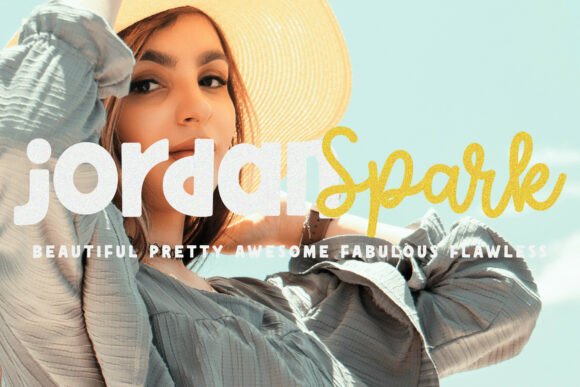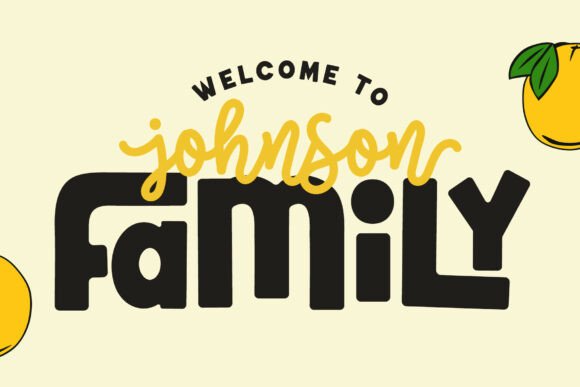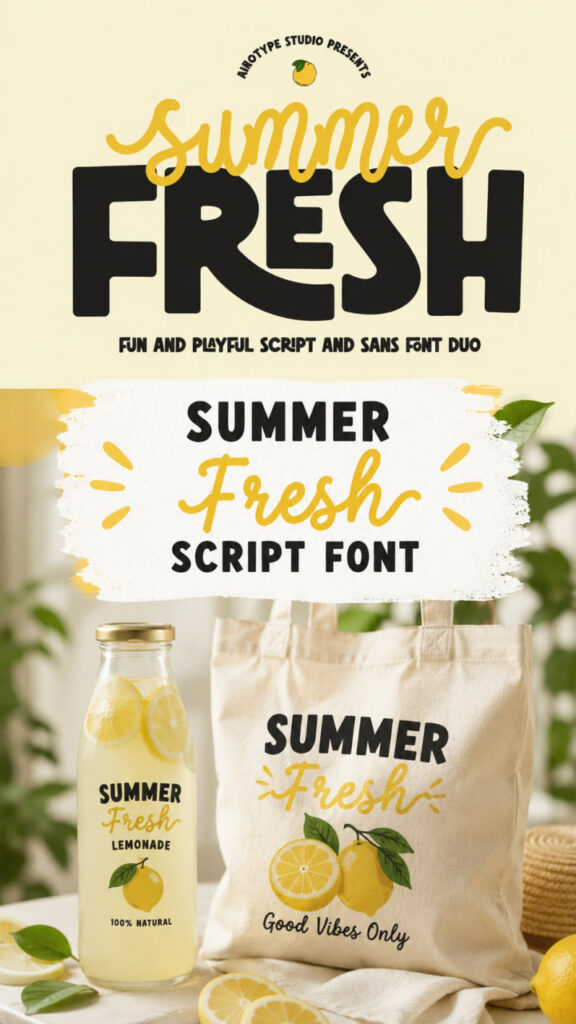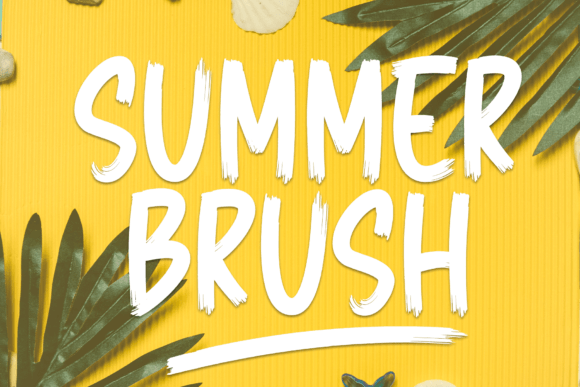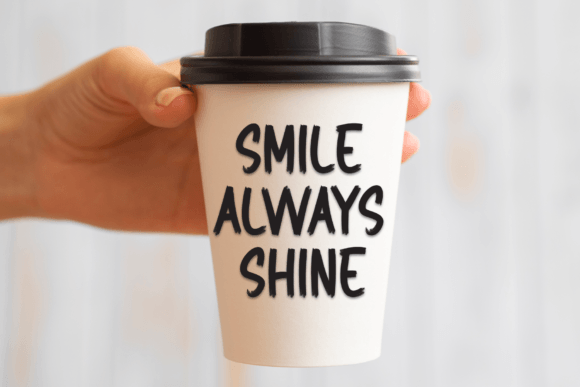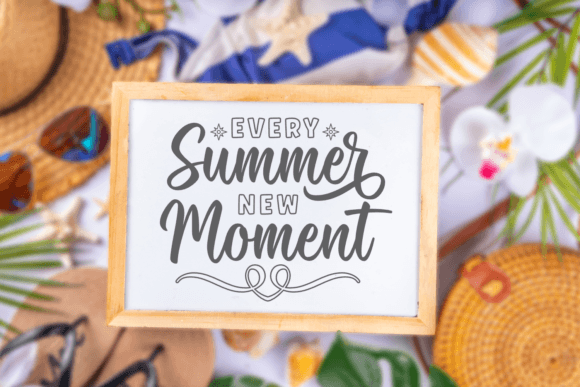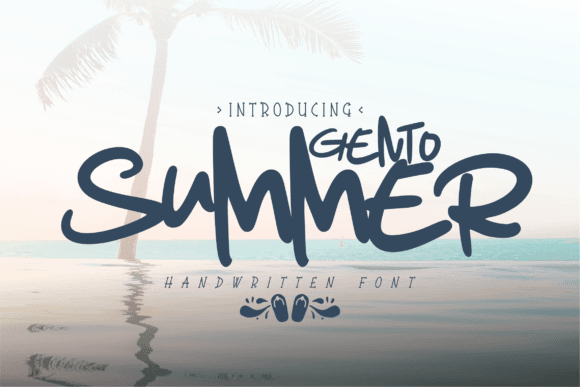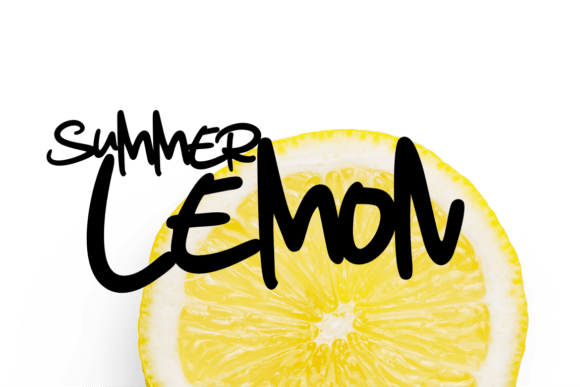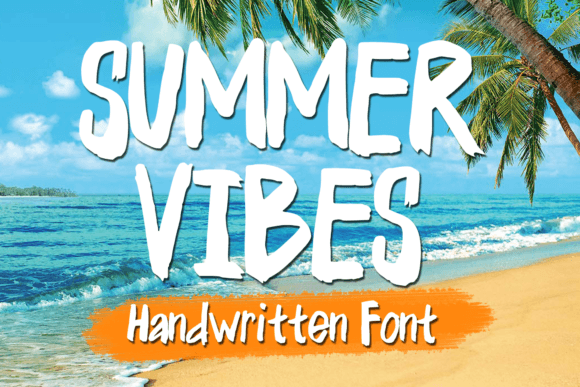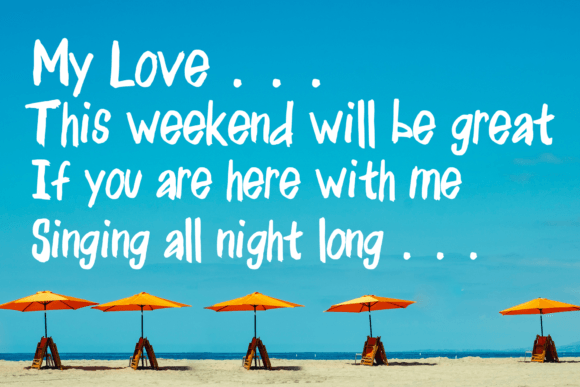
17 Summer Script Fonts: Perfect Typography for Seasonal Designs
Discover the best 17 Summer Script Fonts to bring a warm, sun-drenched magic to your creative projects! This curated collection offers the perfect typography for all of your gorgeous seasonal designs, from relaxed beach party invitations to trendy brand identities that capture the carefree spirit of the sunnier months.
Summer Hipster Font: A Carefree Choice for Script Fonts Fans
Infuse your next creative masterpiece with a wave of pure joy by introducing Summer Hipster, a delightfully happy handwritten typeface designed to instantly lift any canvas into a fun and energetic mood. Radiating a relaxed, sun-soaked personality, this lively selection makes a wonderful and highly expressive addition to your personal collection of Script Fonts.
It serves as an incredibly versatile tool that is perfect for playful branding, eye-catching packaging, custom logotypes, bold headlines, and even whimsical wedding invitations. Best of all, Summer Hipster is fully PUA encoded, which means you can effortlessly access all of its amazing glyphs and seamless ligatures to customize your summer layouts with total ease!
Summer Beach Font: A Delicate Aesthetic for Script Fonts Fans
Capture the gentle whisper of warm coastal breezes with Summer Beach, a beautifully simple and thin-lettered typeface designed to bring an airy, effortless elegance to your creative canvas. Sporting clean lines and a ravishing minimalist flow, this lovely selection makes a graceful and highly sophisticated addition to your personal collection of Script Fonts.
It is incredibly easy to fall for its delicate charm, making it the ultimate tool for crafting gorgeous wedding invitations, elegant stationery art, romantic love letters, and eye-catching social media posts. Bring this breezy summer favorite into your design toolkit today to effortlessly breathe light, artistic sophistication into all of your visual projects!
Summer Fresh Font: A Cheerful Duo for Script Fonts Fans
Double up on your creative sunshine with Summer Fresh, an incredibly fun and bold font duo designed to deliver a massive dose of playful energy to your canvas. This brilliant package pairs a bubbly, monoline script with a chunky, cute sans-serif, giving you the ultimate creative toolkit to make your designs pop. The script style features sweet, shortened lowercase tails that instantly inject a lighthearted, hand-lettered vibe into your text, making it a spectacular choice for your curated library of Script Fonts.
To balance out the flowing script, the accompanying sans-serif style boasts thick, bold strokes and unique ligatures that bring a beautifully structured, chunky warmth to any layout. Because both styles work flawlessly both together and completely on their own, this versatile summer favorite is the ultimate choice for crafting custom birthday cards, playful logos, vibrant stickers, keychains, and custom tumbler sublimations. Whether you are printing eye-catching t-shirts or designing happy party invitations, Summer Fresh ensures your text radiates an unmistakable, joyful charm!
Summer Brush Font: A Stylish Addition to Your Script Fonts Library
Breathe effortless artistic grace into your layouts with Summer Brush, a stylish and incredibly elegant typeface designed to bring an authentic handwritten touch to your creative canvas. Sporting fluid, hand-drawn strokes and a highly polished flow, this eye-catching option makes a spectacular addition to your personal collection of Script Fonts.
It looks absolutely stunning on high-end wedding invitations, heartfelt thank-you cards, inspiring quotes, customized greeting cards, chic logos, and professional business cards. Whether you are crafting delicate event stationery or designing beautiful digital assets, this gorgeous summer favorite easily elevates your typography with a warm, customized, and thoroughly sophisticated finish.
Summer Dear Font: A Charming Duo for Script Fonts Collectors
Unlock a world of effortless crafting potential with Summer Dear, a breathtaking handwritten font duo designed to make your layouts feel incredibly personal and authentic. Boasting a beautiful, natural flow and smart OpenType ligatures, this stunning addition to your Script Fonts collection helps your creative projects stand out with genuine hand-drawn realism.
To make your design journey even sweeter, this lovely summer package comes loaded with over 30 handcrafted illustrations and decorative extras. It is the perfect toolkit for styling rustic wedding invitations, cheerful greeting cards, custom logos, and gorgeous social media graphics. Bring Summer Dear into your creative arsenal today and effortlessly elevate your designs to a whole new level of handcrafted charm!
Gento Summer Font: A Radiant Choice for Script Fonts Collectors
Immerse your visual canvas in the pure, radiant energy of a seaside holiday with Gento Summer, an extraordinarily detailed handwritten typeface designed to make your layouts burst with life. Crafted with a passionate emphasis on artistic style and meticulous detail, this stunning typeface effortlessly encapsulates the warm, joyful, and free-spirited vibe of the sunny season. It makes a spectacular, high-impact addition to your curated collection of Script Fonts.